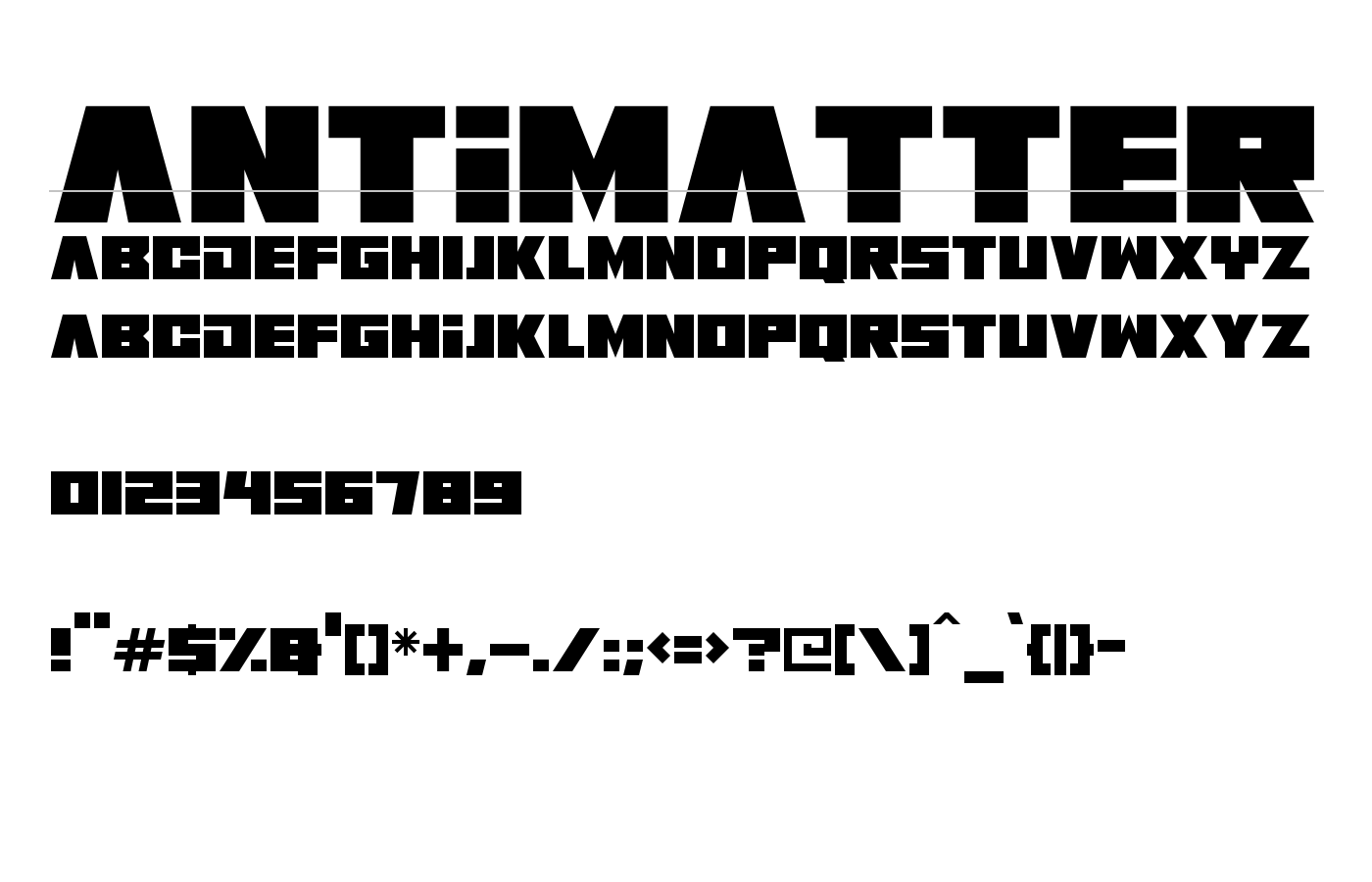
Antimatter is a bold, geometric sans serif font with a strong, blocky presence and sharp angular edges, giving it a futuristic and dynamic feel. Its heavy weight and tight spacing make it ideal for striking headlines, logos, and branding where a modern, impactful look is desired. This font works well in contexts that call for a powerful, tech-inspired aesthetic that commands attention.
Antimatter Font
About Antimatter Font